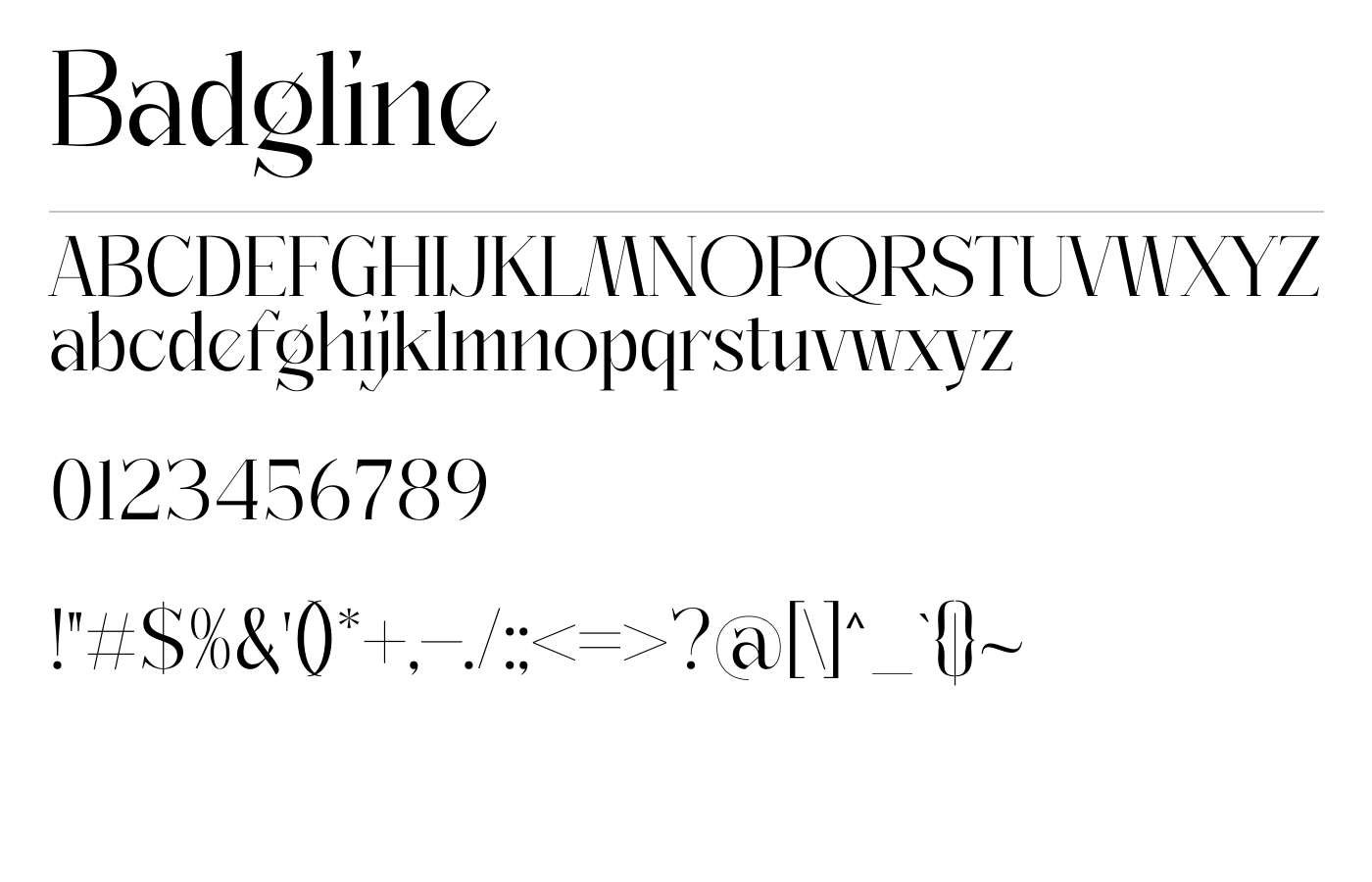
Badgline is a refined serif font that blends high contrast strokes with elegant, slender letterforms, giving it a sophisticated and modern feel. Its sharp, delicate serifs and unique details, such as the single-story 'g' and artistic curves, make it ideal for luxury branding, editorial headlines, and stylish packaging where a touch of refinement and exclusivity is desired. This font shines in settings that call for a graceful yet contemporary look, balancing classic elegance with a fresh, fashionable edge.
Badgline Font
About Badgline Font